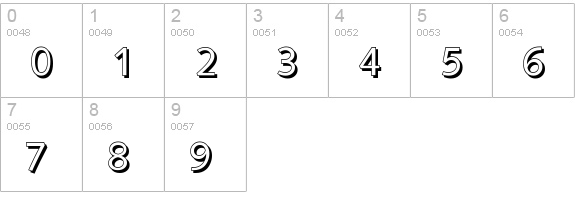
SaxonyShadow-Regular Font Details
SaxonyShadow-Regular is the standard, neutral variant in the SaxonyShadow typeface family \xE2\x80\x94 well suited to general body text, paragraphs, and standard typographic work.
SaxonyShadow-Regular font is a stylish and elegant typeface that exudes a sense of sophistication and modernity. Its sleek lines and subtle shadows make it perfect for adding a touch of class to any design project. This versatile font can be used for a variety of purposes, from branding and logos to headlines and body text. The best part? SaxonyShadow-Regular font is completely free to download at FontsMarket.com. You can easily add this beautiful font to your collection without any cost, making it a valuable asset for any designer or creative professional. Don't miss out on the opportunity to enhance your projects with the timeless appeal of SaxonyShadow-Regular font. Download it today and elevate your designs to the next level.